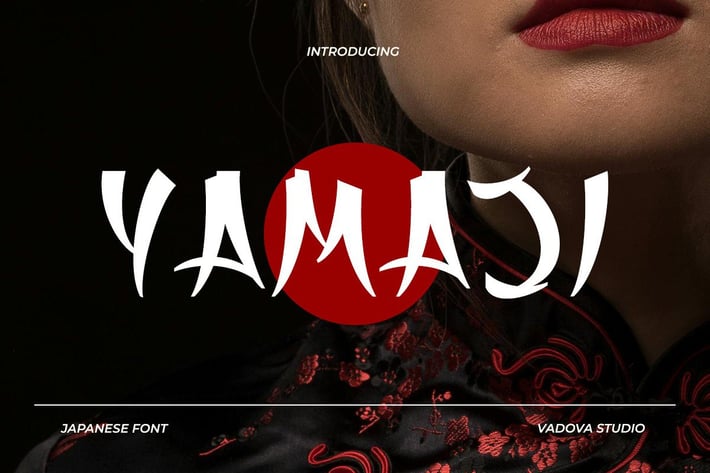
Yamaji Japanese Creative Font
Yamaji Japanese Font is a dynamic display font that embodies the essence of traditional Japanese calligraphy with a modern, bold twist. Its energy is powerful and expressive, evoking the spirit of martial arts, ancient traditions, and vibrant cultural artistry. This font is perfect for designs aiming to convey strength, authenticity, and a distinct Asian-inspired aesthetic.
Yamaji Suitable for highly versatile, perfect for branding, impactful posters, and eye-catching packaging. It excels in editorial headlines, social media graphics. Ideal for event promotion, album art, book covers, and gaming, it also suits restaurant menus, martial arts branding, and various digital and print advertisements, ensuring a unique and memorable visual presence.